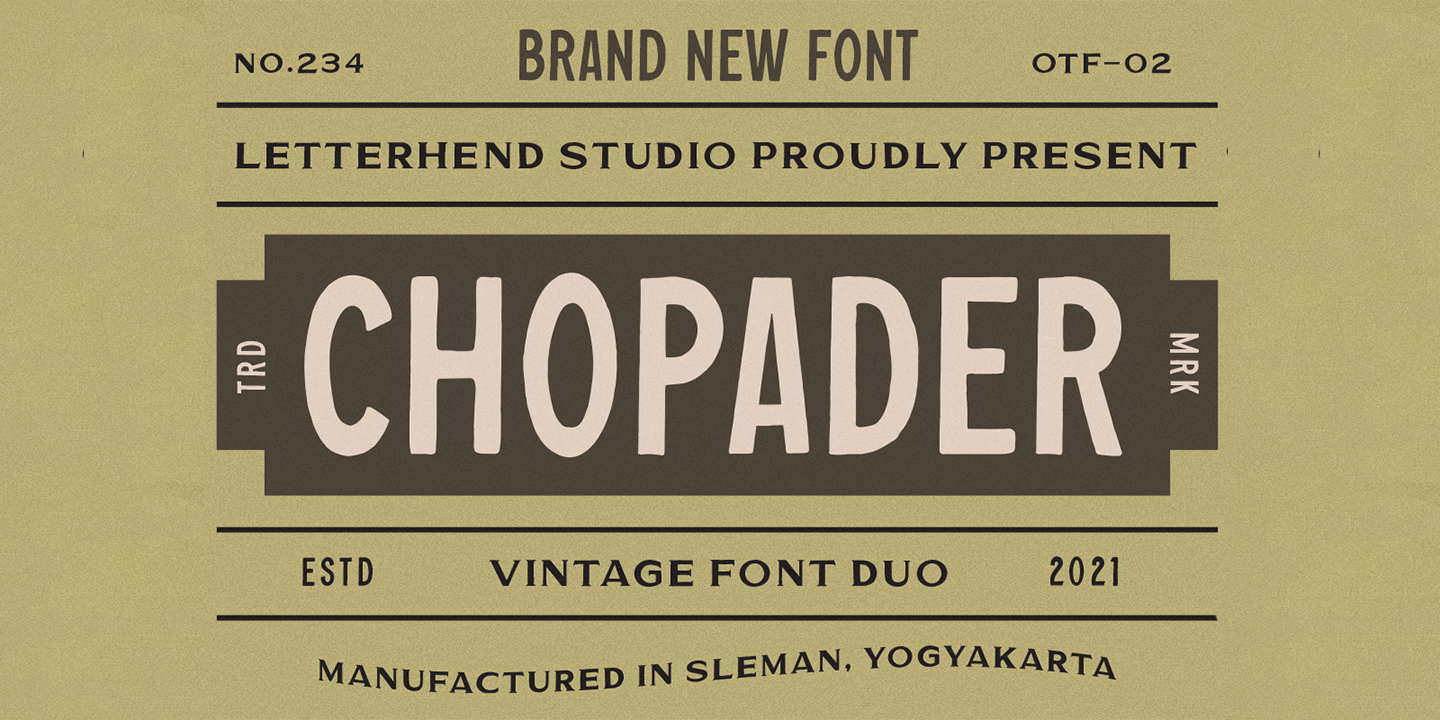
Chopader Font is perfect for urban streetwear branding, contemporary art exhibitions, modern graffiti designs, youth culture magazines, creative agency portfolios, alternative music promotions, skateboard company logos, indie fashion labels, underground event posters, and edgy social media campaigns. This distinctive typeface brings cutting-edge street culture and contemporary urban aesthetics to any design project celebrating creative rebellion and modern artistic expression.
Chopader Font is exciting because it captures the raw energy and creative innovation of modern street culture through its bold, unconventional letterforms that suggest artistic disruption and urban creativity. The font's edgy character and contemporary appeal communicate authenticity, creative freedom, and cultural relevance, making it perfect for brands that want to connect with young, creative audiences seeking genuine artistic expression.
Chopader Font family includes multiple weights and styles: Regular, Bold, Light, Medium, Black, Condensed, Extended, Street, Urban, and Creative variants. Each style maintains the distinctive contemporary character while providing comprehensive options for creating powerful street-inspired branding and modern artistic communications that celebrate both creative innovation and urban cultural heritage across various creative applications.
Whether you're designing for creative agencies, streetwear brands, or urban culture projects, Chopader Font Free Download delivers the authentic street credibility that resonates with creative professionals and urban culture enthusiasts. This dynamic typeface combines contemporary street aesthetics with modern functionality, making it essential for projects requiring both artistic authenticity and cutting-edge appeal. The font's urban presence ensures memorable impact in creative and street culture contexts.